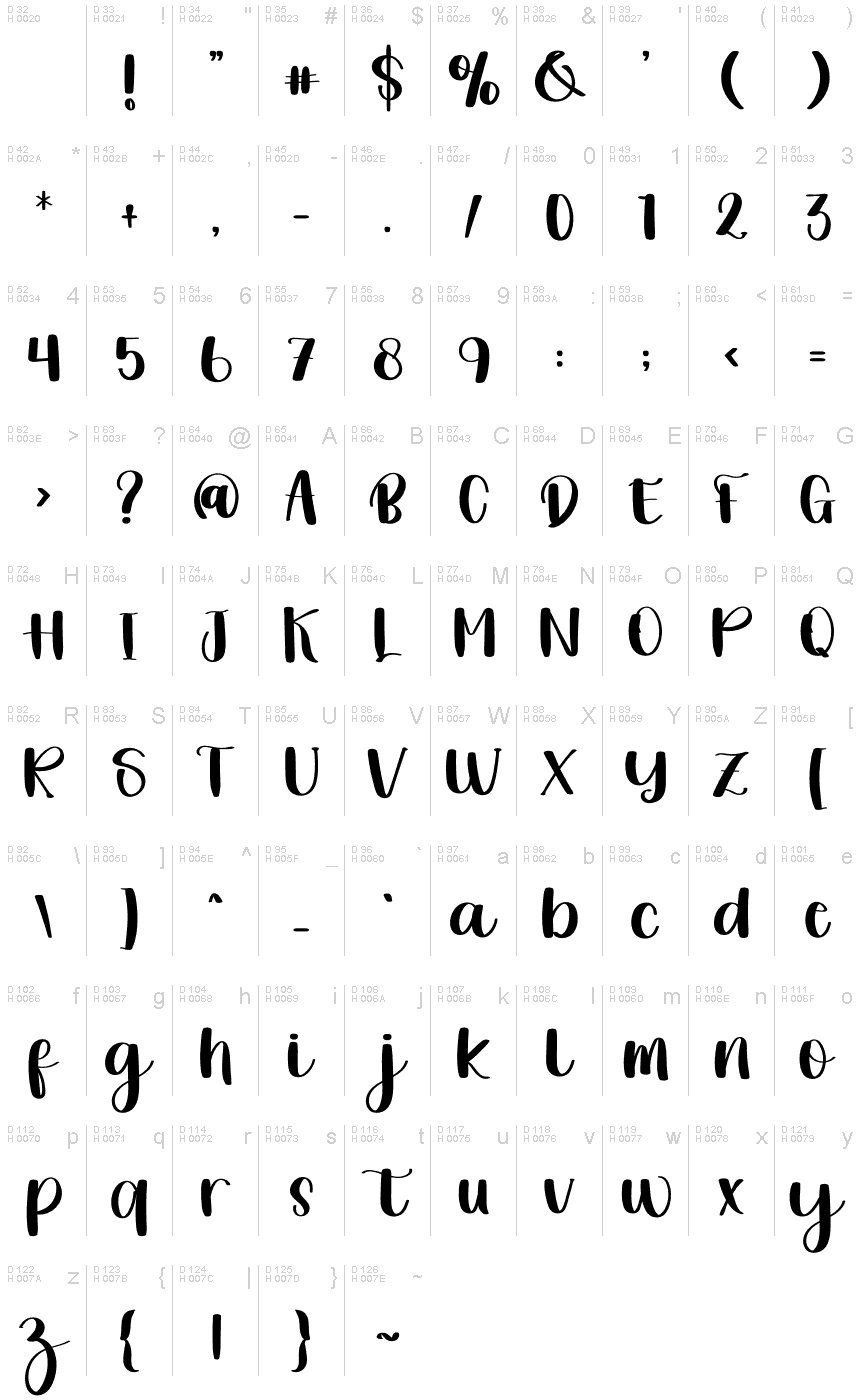
Vintage
Vintage, an elegant handwritten script font by FreshtypeINK, is perfect for adding a touch of personal charm to any project. This lovely font is ideal for creating warm, inviting invitations, posters and logos with a vintage feel.